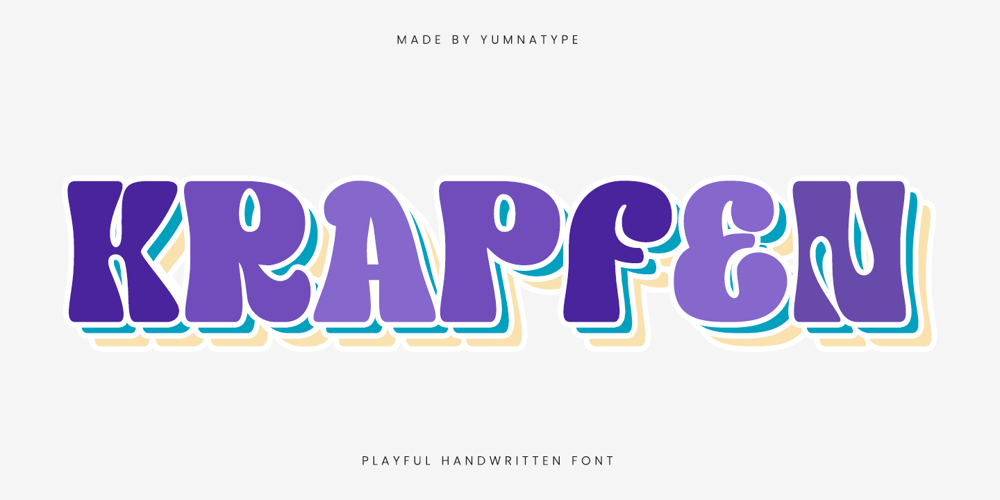
Krapfen
Krapfen font
Krapfen Font Family was designed by Donis Miftahudin and published by Yumna Type. Krapfen contains 1 styles and family package options. Krapfen is a playful handwritten font designed in uppercase with a very thick weight and quite visible contrast. The rounded shapes give it a friendly and inviting look. Its thick, rounded letters and notable contrast make it an excellent choice for projects that need a mix of playfulness and impact, ensuring your message is both memorable and engaging. In addition, enjoy the features here.Features: Multilingual Supports PUA Encoded Numerals and Punctuations Krapfen fits in headlines, logos, posters, flyers, branding materials, print media, editorial layouts, and many more designs. Find out more ways to use this font by taking a look at the font preview.Thanks for purchasing our fonts. Hopefully, you have a great time using our font. Feel free to contact us anytime for further information or when you have trouble with the font. Thanks a lot and happy designing.